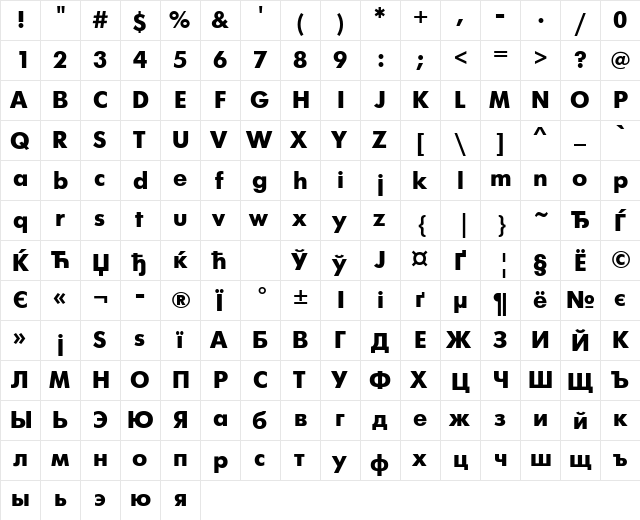
FuturisCTT Bold
Design Context for FuturisCTT Typeface
FuturisCTT channels digital-age aesthetics through its sharp, structured letterforms — ideal for brands that want to signal innovation. The heavy weight commands attention and anchors typographic hierarchies.